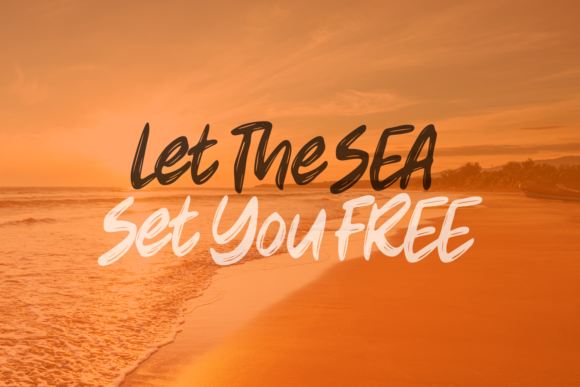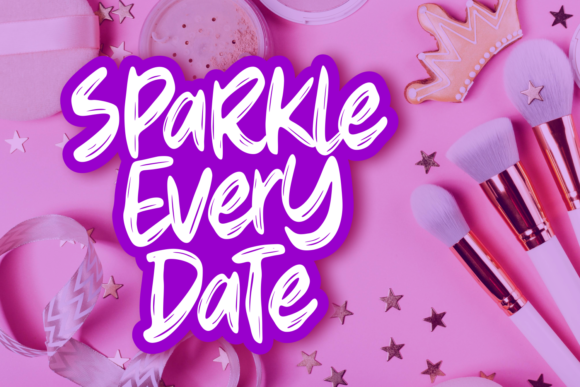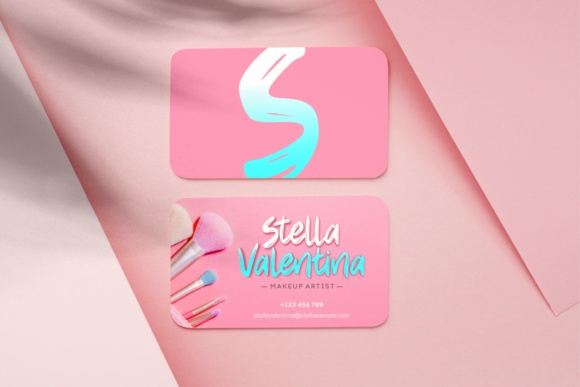
Discovering the Perfect Beachy Vibe
Have you ever found yourself lost in the serenity of a beach at sunset, feeling the gentle ocean breeze and listening to the soothing sound of waves? That’s where the inspiration for the Cozy Beach Font comes in – a simple, fun, and relaxed Script font that’s perfect for capturing the essence of a warm, sunny day.
Cozy Beach Font is designed to be easy to read and versatile, making it an excellent choice for business cards, websites, quotes, and more. Its big brush strokes give it a friendly and approachable feel, perfect for designers looking to add a personal touch to their projects. With the Cozy Beach Font, you can evoke the feeling of a beachy getaway, even on the busiest of days.
Key Features of Cozy Beach Font
- Font Family: Cozy Beach is a unique, hand-drawn font designed to evoke a sense of relaxation and calmness.
- Character Set: Includes a wide range of characters, including uppercase and lowercase letters, numbers, and punctuation marks, making it suitable for various text-based applications.
- Unique Characteristics: Features a distinctive, hand-drawn style with subtle imperfections, giving it a warm and inviting feel.
Cozy Beach Font Review
I recently had the chance to dive into the “Cozy Beach Font” and here’s my honest take on it.
- The font’s distressed texture and subtle gradient effects give it a unique, beachy vibe that’s perfect for summer-themed projects.
- The font is highly legible, even at smaller font sizes, making it a great choice for body text or headings.
- The font includes a wide range of characters, including punctuation and symbols, making it easy to use in a variety of contexts.
- The font’s distressed texture may not be suitable for all types of projects, such as formal documents or corporate materials.
- The font’s gradient effects may not be compatible with all design software or devices.
- The font is relatively new, so it may not have the same level of support or community engagement as more established fonts.
Overall, I think the “Cozy Beach Font” is a great addition to any designer’s toolkit. Its unique texture and gradient effects make it perfect for summer-themed projects or anything that needs a relaxed, beachy vibe. While it may have some limitations, I think the benefits far outweigh the drawbacks.
For the best results, use Cozy Beach Font in conjunction with other warm and inviting design elements, such as pastel colors and natural textures. This font is particularly suitable for beach-themed designs, wedding invitations, and outdoor advertising.
Experiment with different font sizes, colors, and effects to create a unique and eye-catching design. You can also pair Cozy Beach Font with other fonts to achieve a balanced and harmonious look.